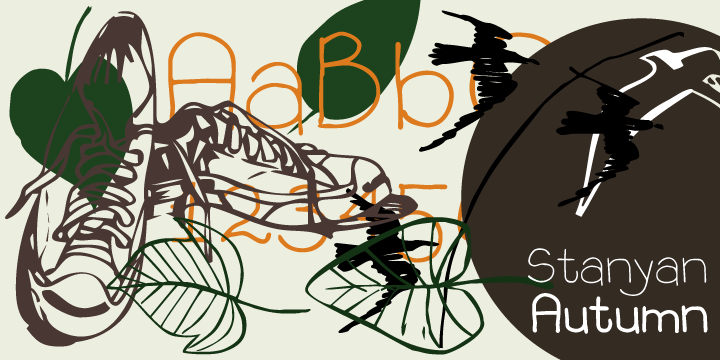
P22 Stanyan Autumn
from P22
Design Credits
Designed by: Richard Kegler, Anthony Goldschmidt, Rod McKuen
Designed when: 2004
Design owned by: P22
P22 Stanyan Autumn
P22 Stanyan Autumn is a set of three fonts based upon a casual hand lettering text created for the deluxe 1969 edition of “...and autumn came” by Rod McKuen.